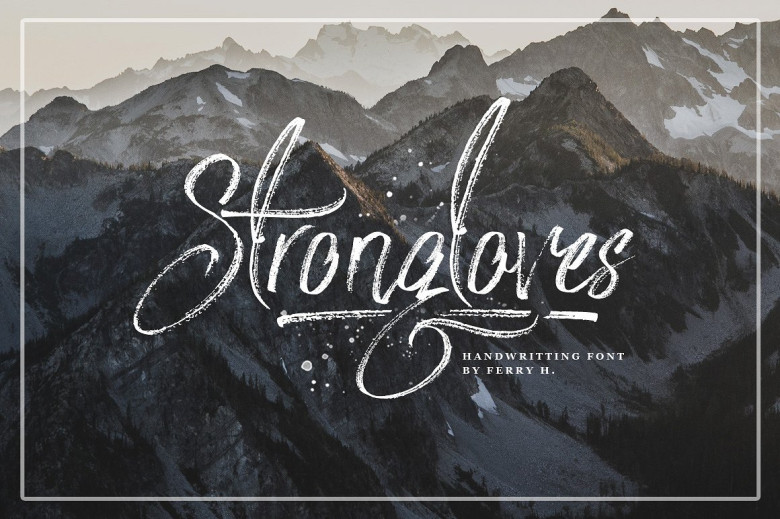
Strongloves Handwriting Font
If you are looking for a font handwriting for your upcoming project then this is a good choice. Your customers will feel satisfied with your product. Introducing Strongloves Handwriting Font – An organic and expressive handwritten brush script font designed for versatility. Strongloves Brush designed by Ferry Hadriyan. Strongloves is Dry Brush Script Font with handletter style. Suitable for design, element design, wedding, event, t-shirt, logo, badges, sticker, and awesome work, etc…